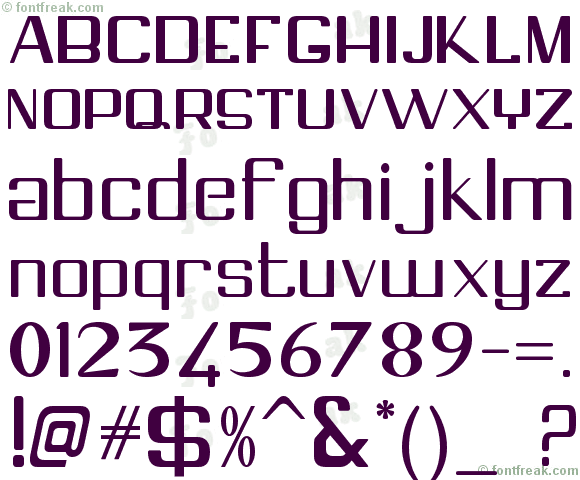
Ranger Regular
Ranger, designed by Allan Matthews in 2003, is a distinct display typeface that combines a modern aesthetic with a touch of retro flair. This freeware font stands out with its unique character and versatility, making it an excellent choice for various design projects. The Ranger font features a bold stroke weight and moderate contrast, creating a visually striking appearance that draws the eye. The letterforms are well-spaced, allowing for easy readability while maintaining an engaging visual presence. Its distinctive curves and angles give the font a playful yet sophisticated look, making it ideal for a wide range of applications.
The Ranger font is particularly well-suited for wedding invitations, where its elegant style can enhance the romantic theme. Additionally, it works wonderfully for movie posters, providing a bold statement that captures attention. Restaurant menus can benefit from Ranger's unique character, giving a creative touch that reflects the establishment's personality. Graphic designers will find this font to be a valuable asset for branding projects, as it conveys a sense of creativity and innovation. Content creators can also utilize Ranger in digital graphics, ensuring their visual content stands out in a crowded online space.
Targeted towards graphic designers, small business owners, and content creators, Ranger offers a fresh alternative to more traditional typefaces. Its free availability makes it accessible for projects of all sizes, encouraging creativity without breaking the bank. The Ranger font free download allows users to experiment with its unique style, facilitating innovative designs. Ultimately, Ranger stands out not just for its aesthetic appeal but also for its versatility and functionality across diverse design applications, making it a must-have in any designer's toolkit.